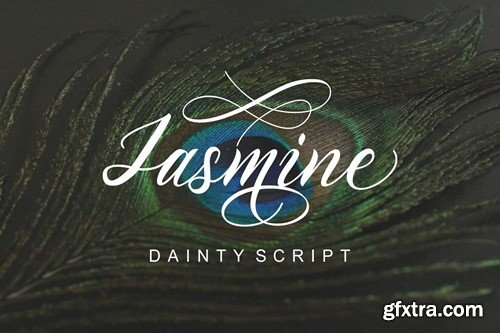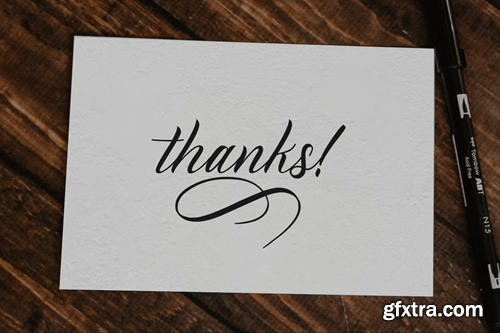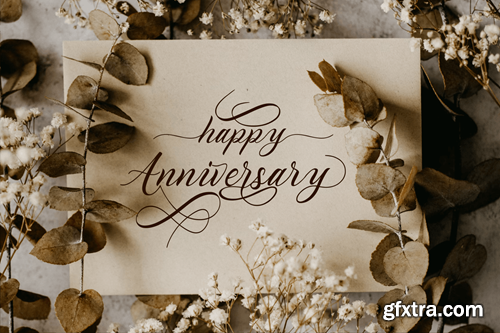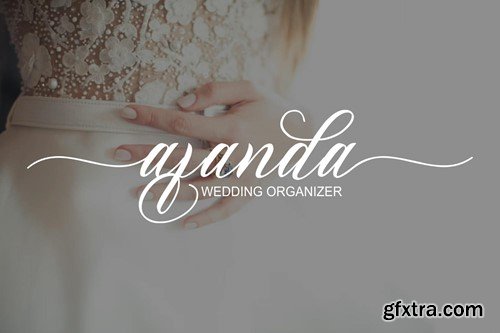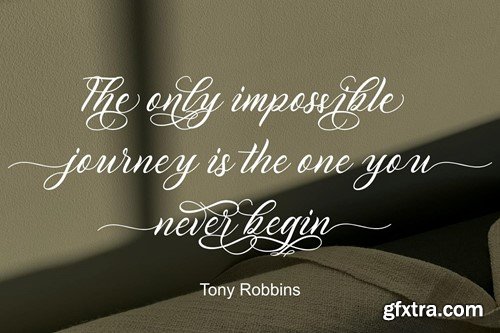
Jasmin - Dainty Caligraphy Font
Introducing the new dainty calligraphy font, ** Jasmine ** is perfect for label, upscale packaging, wedding stationery, invitations, business cards, branding and other projects that require a touch of handwriting and luxury. ** Jasmine ** includes full set of dainty uppercase and lowercase letters, multilingual support, punctuation, ligatures, alternates, swash and stylisticset .dainty extras from a to z and beginning and ending numerals swashes. everything can be easily accessed using software that supports OpenType. Like Adobe Indesign, Adobe Illustrator CS, Adobe Photoshop CC, and Corel Draw. Included : Jasmine OTF Jasmine TTF Jasmine WOFF Thank you